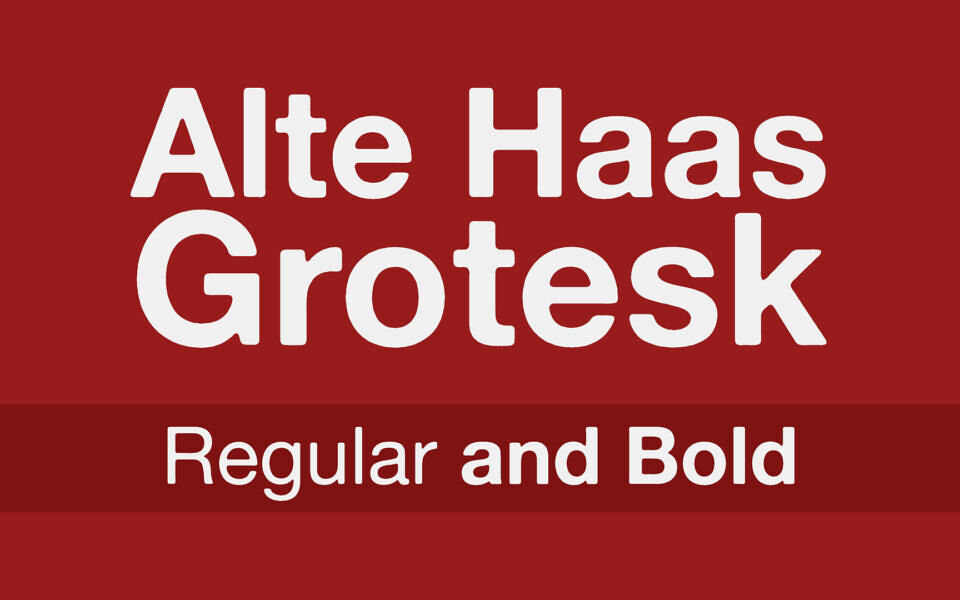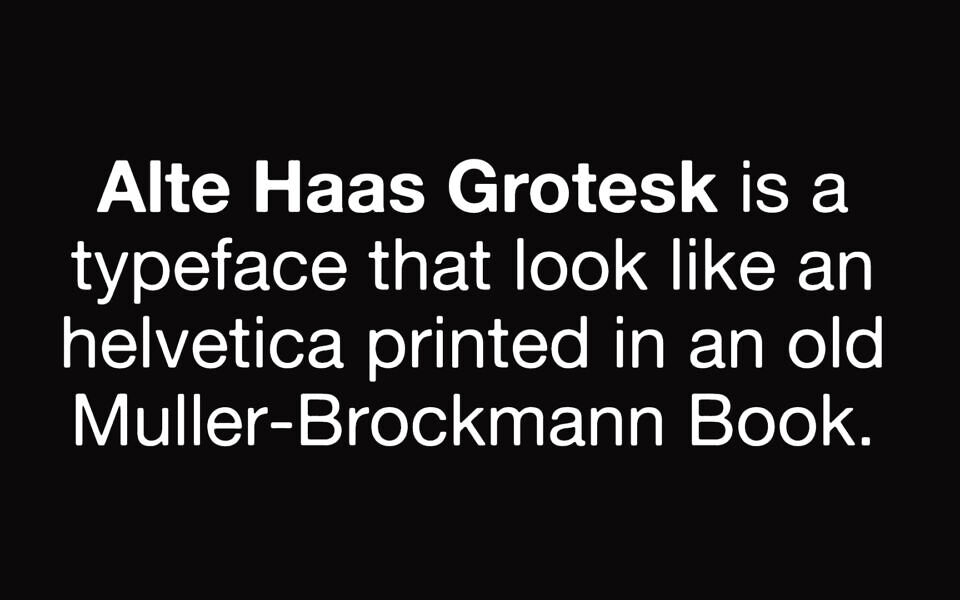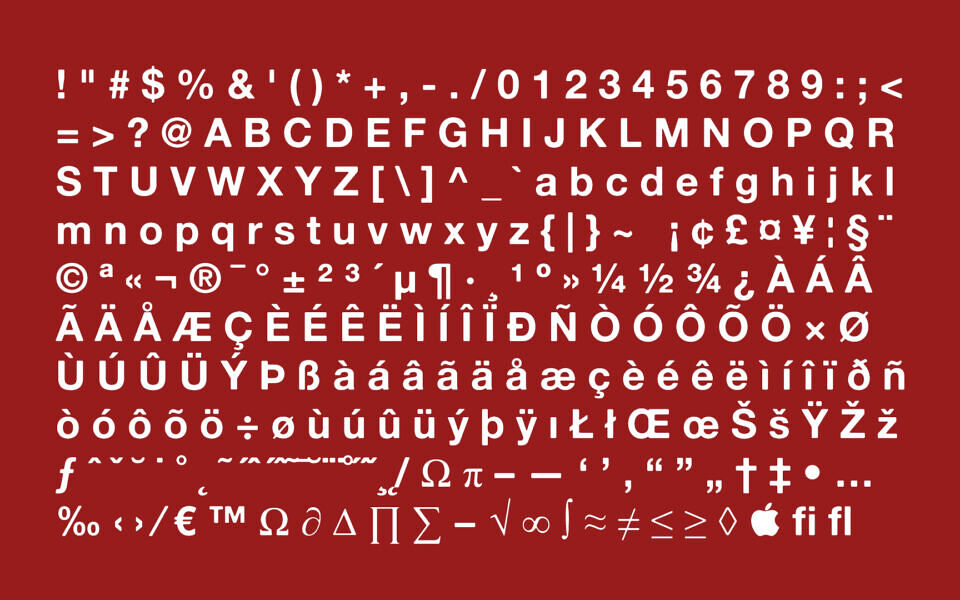
Alte Haas Grotesk is a rounded neo-grotesque sans-serif typeface designed by Yann le Coroller. It is inspired by the iconic Swiss-style aesthetic, specifically mimicking the appearance of Helvetica as it might look when printed in vintage mid-century design books.
With its clean, functional, and slightly nostalgic character, this versatile font is an excellent choice for projects seeking a classic, minimalist look. It includes both regular and bold weights, offering a refined, timeless appeal for diverse design applications.